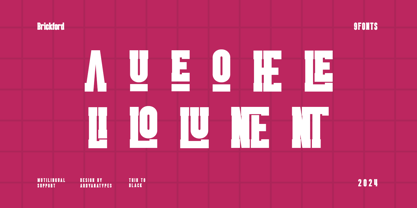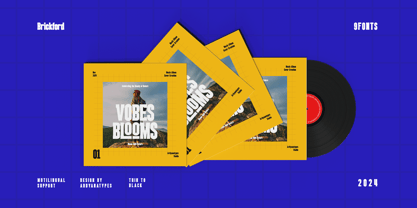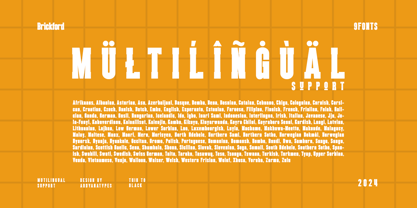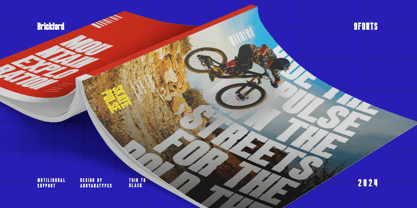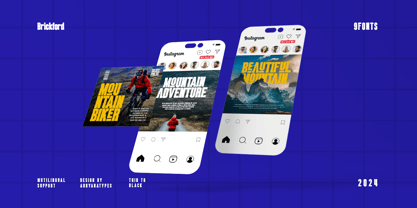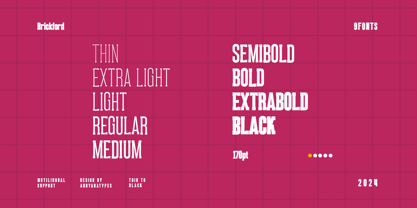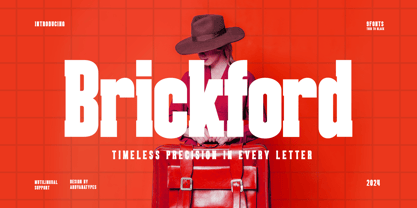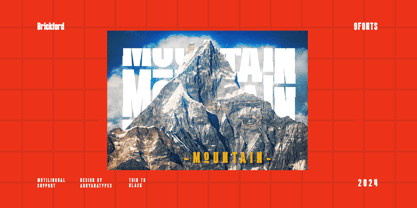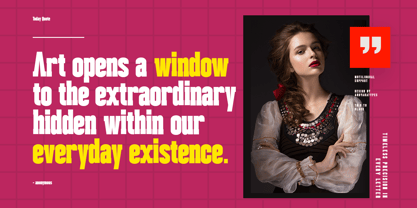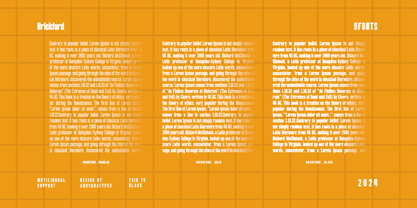
Brickford
by Ardyanatypes
The Brickford Font Family was designed by Ardyana Putra and published by Ardyanatypes. Brickford contains 9 styles and family package options. More about this family
Brickford is a modern sans-serif font designed to convey boldness, confidence, and professionalism. With its sturdy and precise design, Brickford offers exceptional versatility for designers seeking high-quality typographic solutions. Available in 9 distinctive styles, ranging from Thin to Black, this font seamlessly adapts to various design projects, from corporate branding and striking advertising posters to captivating editorial headlines.
One of Brickford’s standout features is its robust yet clean and minimalist appearance, making it suitable for a wide range of design themes, both modern and classic. Equipped with extensive multilingual support, Brickford ensures that every message is delivered clearly to a global audience. The precise typographic details make it the perfect choice for designers who value quality and aesthetics.
Brickford not only offers visual beauty but also technical reliability. This font is crafted to deliver a seamless design experience, whether for print or digital use. Whether you are a graphic designer, content creator, or entrepreneur looking to elevate your branding, Brickford is the ultimate choice to make your design stand out.